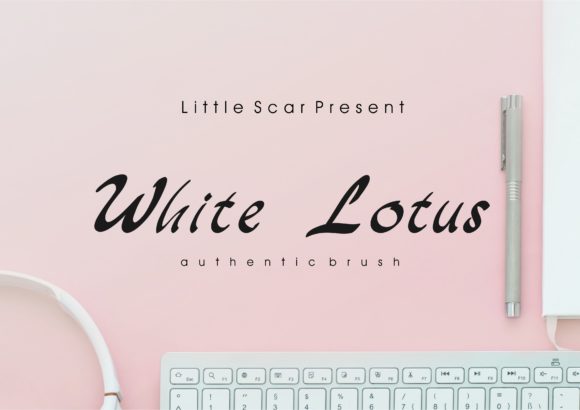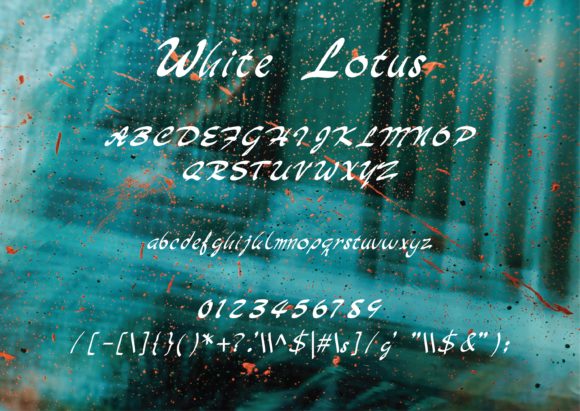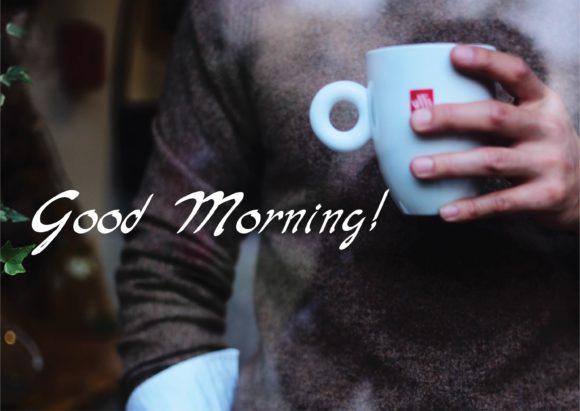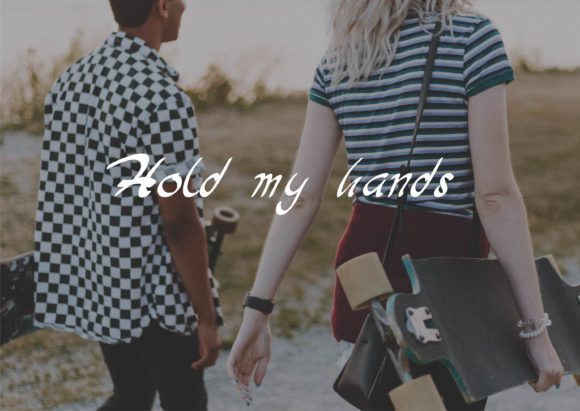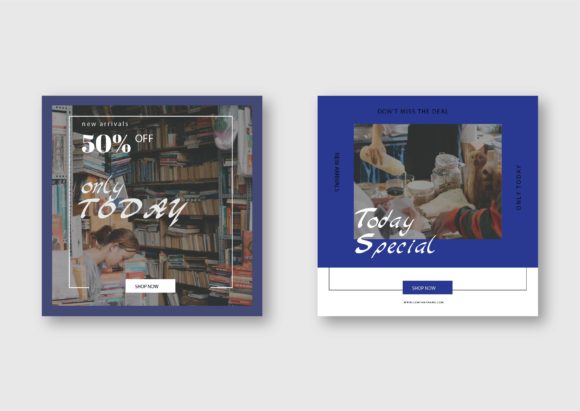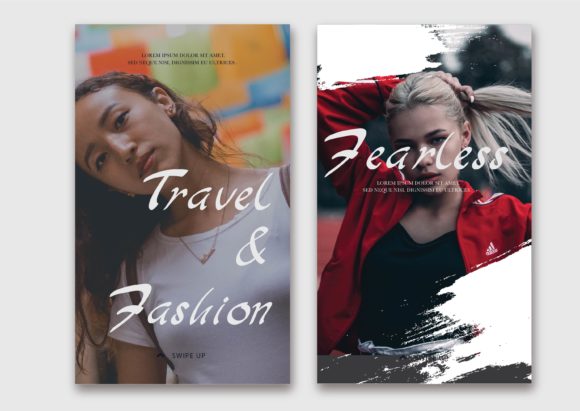
White Lotus Font
About White Lotus Font
White lotus is an amazingly authentic brush. It’s simple, yet elegant and perfect for a wide variety of design occasions!